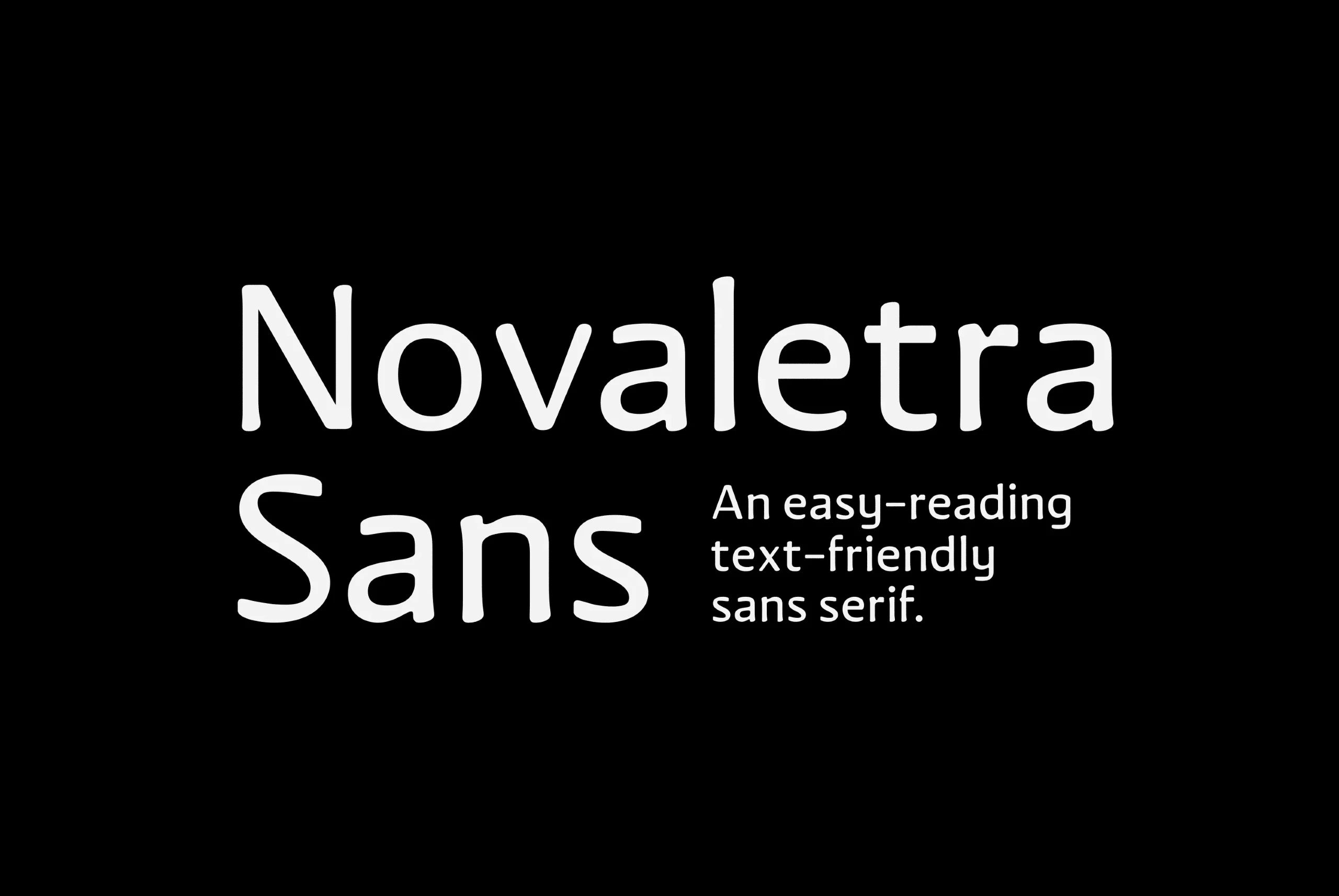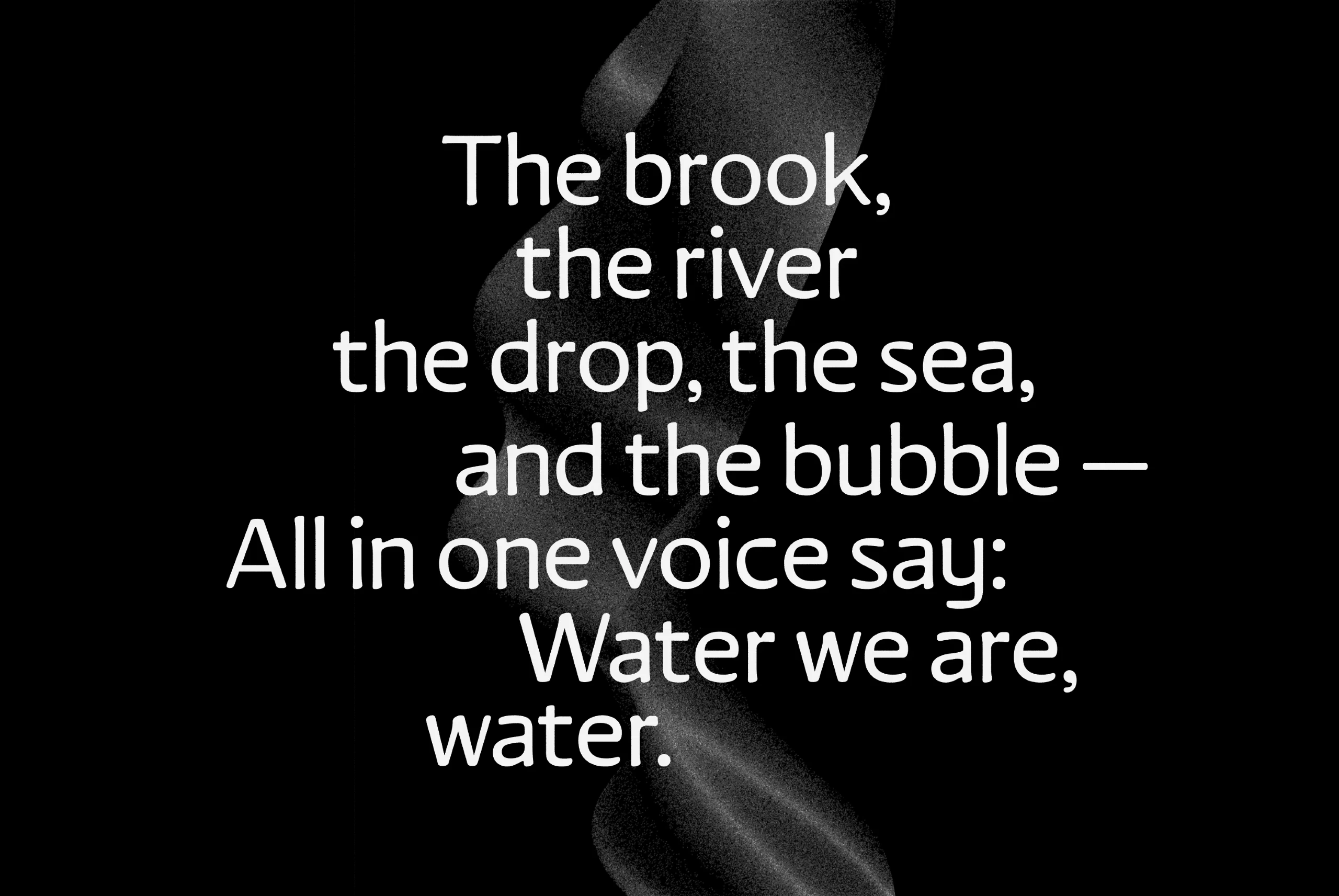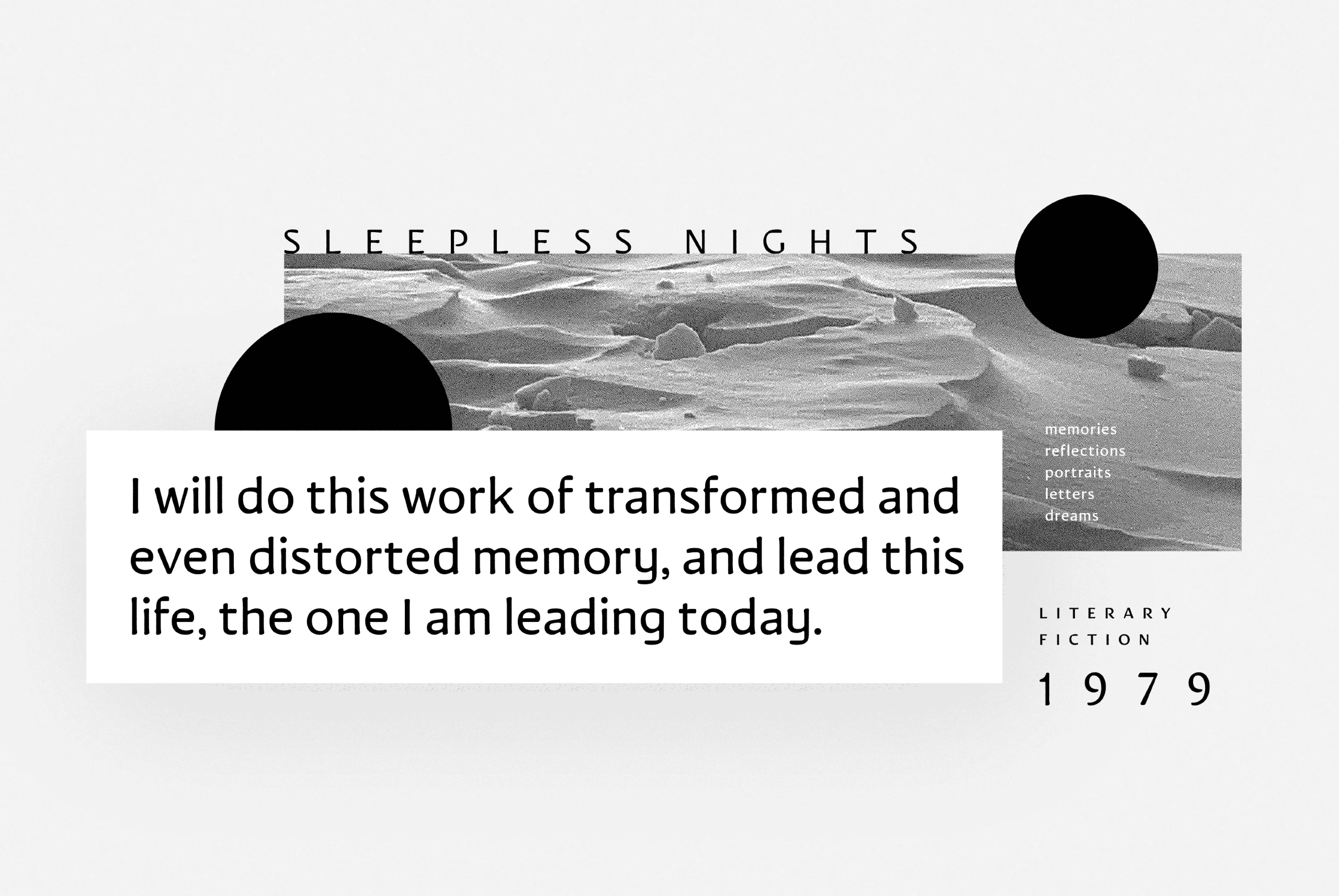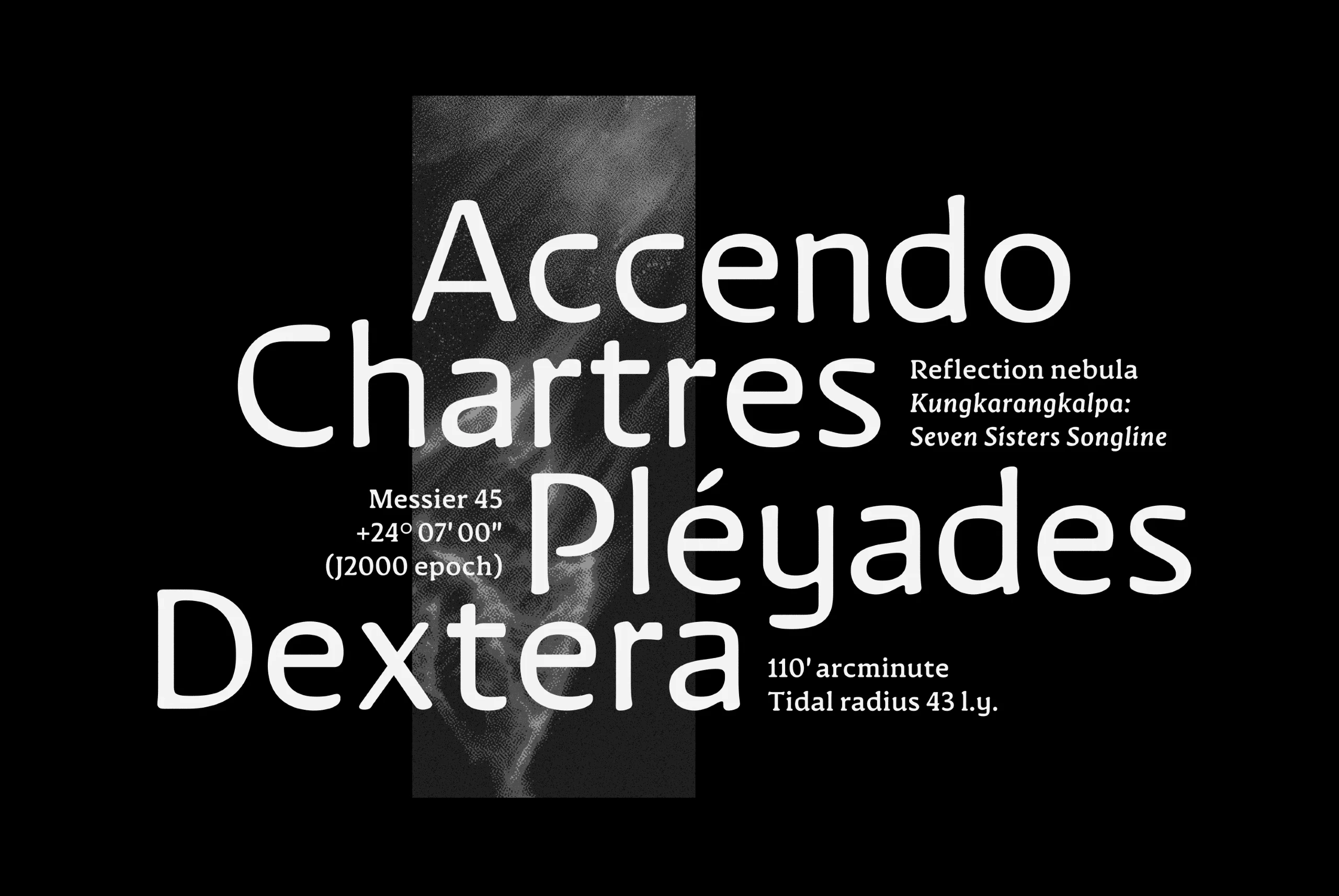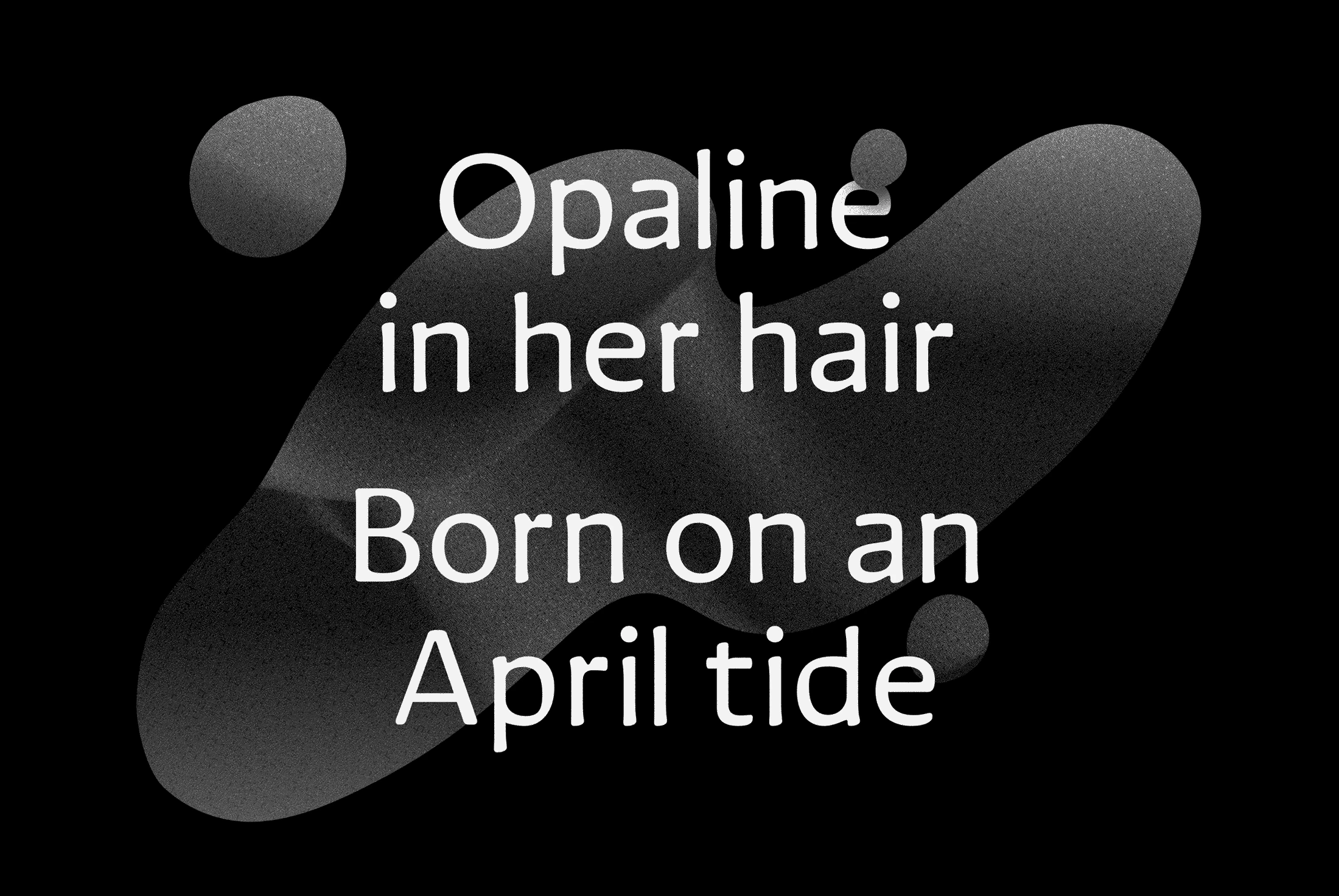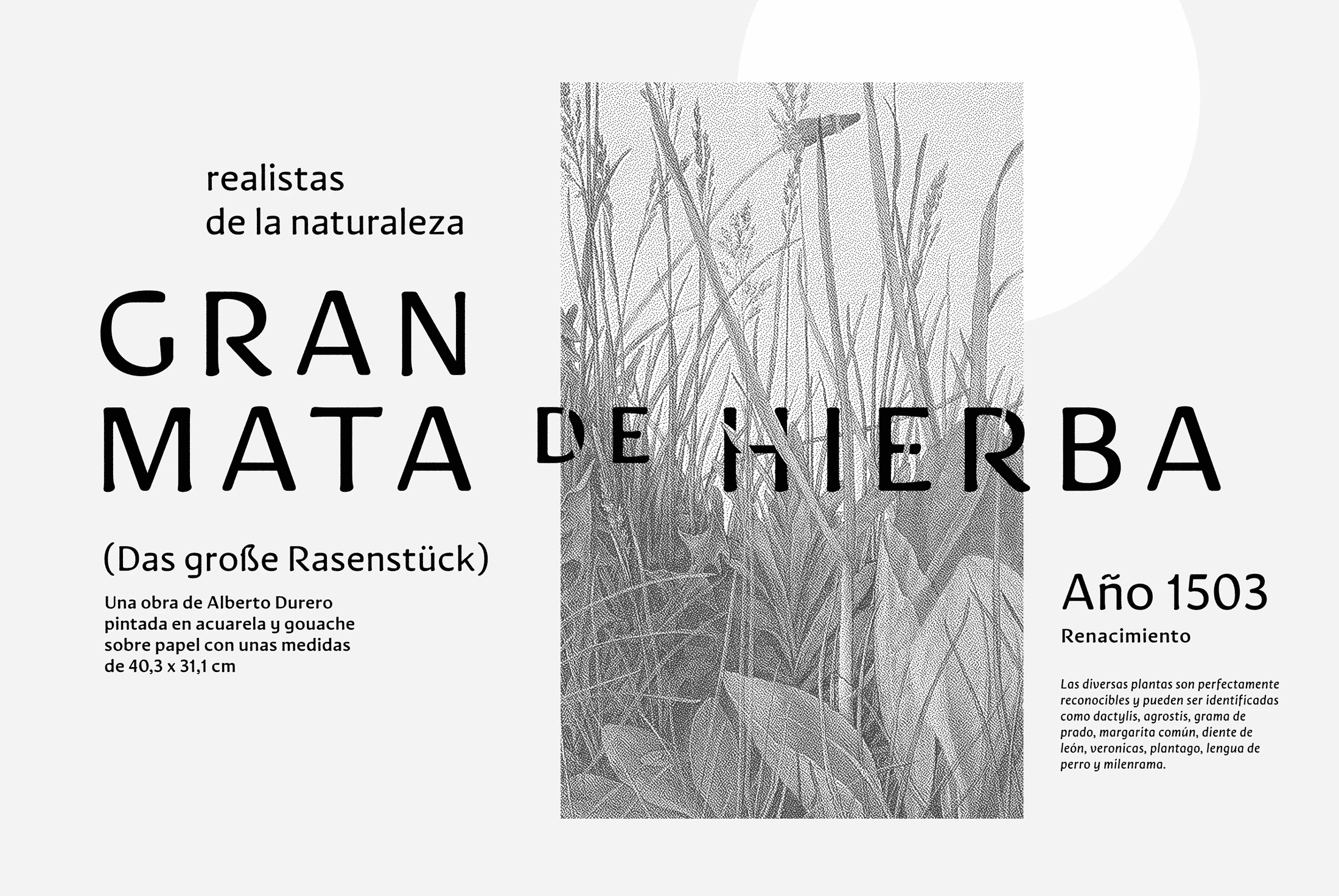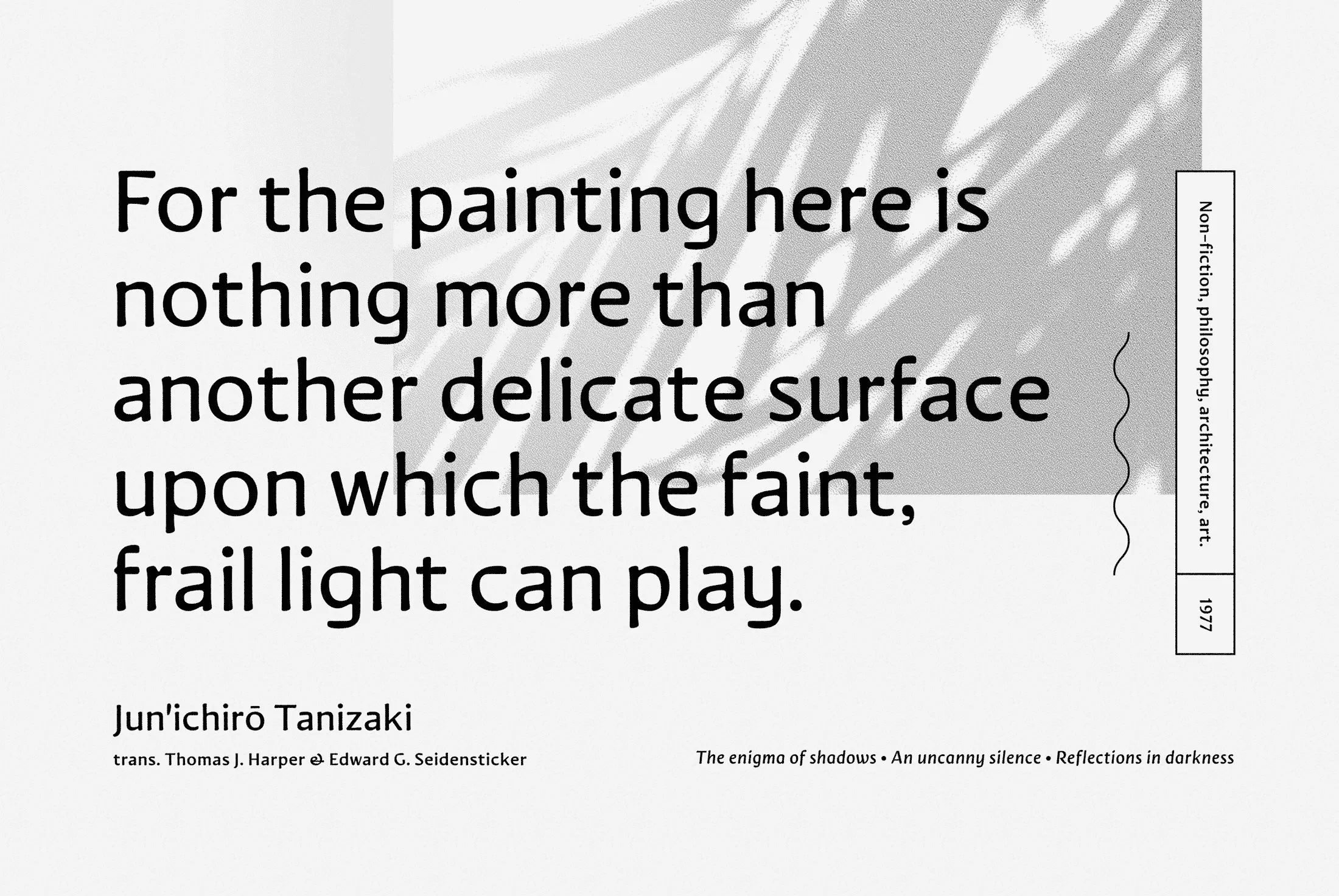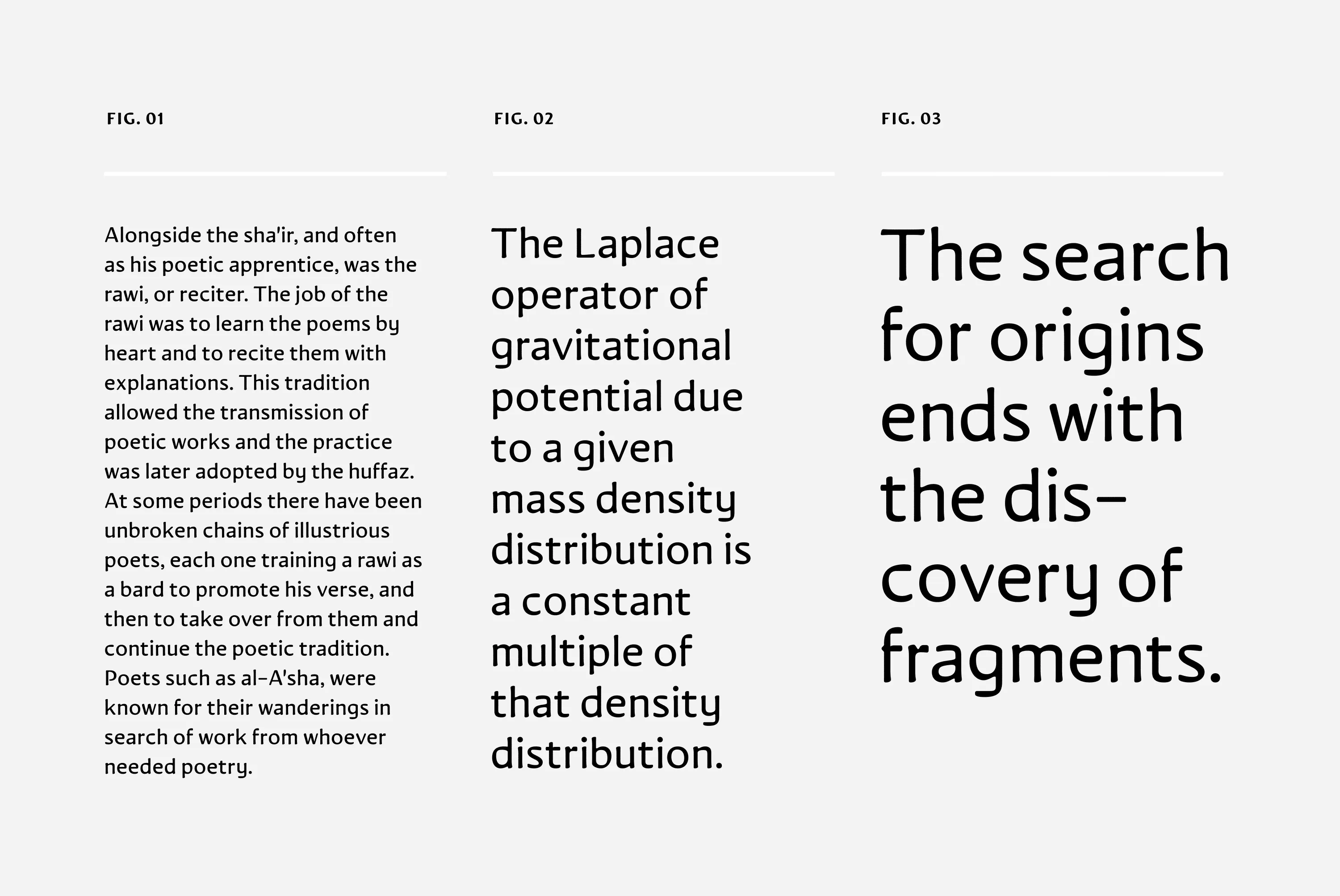
Novaletra Sans
Smooth brushstrokes inform the construction of Novaletra Sans CF. As Novaletra Serif’s sister typeface, Novaletra Sans shares its easy readability and excellent performance in a humanist design. Subtle flares and low stroke contrast provide warmth uncommon in sans-serif font families. Perfect for longform texts, books, articles, newspapers, and more. Includes Latin and Cyrillic glyphs in upright and italic sets.
seven Weights in Latin & Vietnamese • Cyrillic Script
Language support includes Belarusian, Bulgarian, Catalan, Chinese Pinyin, Croatian, Czech, Danish, Dutch, English, Filipino, Finnish, French, Fula, German, Hungarian, Indonesian, Italian, Kazakh, Latvian, Macedonian, Malay, Maltese, Norwegian, Polish, Portuguese, Romanian, Russian, Serbian, Slovak, Slovenian, Spanish, Swedish, Turkish, Ukrainian, Uzbek, Vietnamese